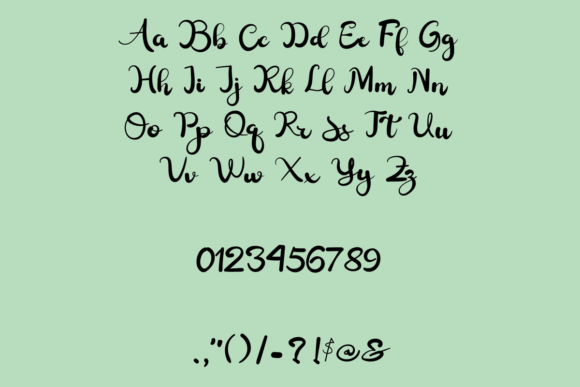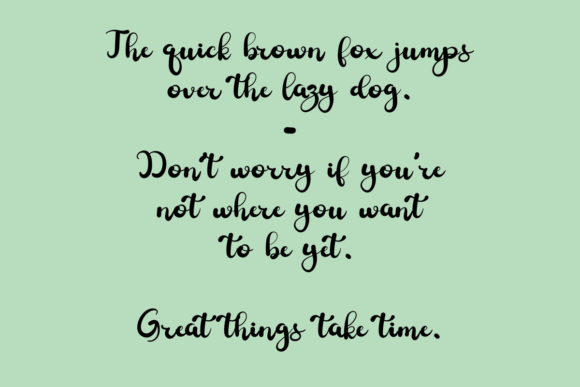
Introducing Claudia Font: The Playful and Lively Brush Script Font
Are you looking for a font that can add a cheerful touch to your project? Look no further than Claudia Font, a playful and lively brush script font that is sure to bring a smile to your face. With its fun and energetic style, Claudia is perfect for designers and crafters who want to add a personal touch to their work.
What is Claudia Font?
Claudia Font is a brush script font that is designed to mimic the look and feel of handwritten text. Its letters flow with a fun and energetic style, making it perfect for adding a playful touch to any project. Whether you’re working on a graphic design project, a crafting project, or just want to add some personality to your digital communications, Claudia Font is a great choice.
Key Features of Claudia Font
- Playful and lively style: Claudia Font has a fun and energetic style that is sure to add a cheerful touch to any project.
- Brush script design: Claudia Font is designed to mimic the look and feel of handwritten text, giving it a personal and unique feel.
- Easy to read: Despite its playful style, Claudia Font is easy to read and understand, making it perfect for use in a variety of projects.
- Versatile: Claudia Font can be used in a variety of projects, from graphic design and crafting to digital communications and more.
Uses for Claudia Font
Claudia Font is a versatile font that can be used in a variety of projects, including:
- Graphic design projects: Claudia Font is perfect for use in graphic design projects, such as brochures, flyers, and posters.
- Crafting projects: Claudia Font is a great choice for crafters who want to add a personal touch to their projects, such as scrapbooking and card making.
- Digital communications: Claudia Font can be used in digital communications, such as emails and social media posts, to add a personal and playful touch.
- Sign making: Claudia Font is perfect for use in sign making, such as creating signs for events or businesses.
Tips for Using Claudia Font
Here are a few tips for using Claudia Font in your projects:
- Use it sparingly: Claudia Font is a playful font, so it’s best to use it sparingly to add a touch of personality to your project.
- Pair it with other fonts: Claudia Font pairs well with other fonts, such as sans serif fonts, to create a visually interesting design.
- Experiment with colors: Claudia Font looks great in a variety of colors, so don’t be afraid to experiment and find the perfect color for your project.
Claudia Font is a playful and lively brush script font that is perfect for adding a cheerful touch to any project. With its fun and energetic style, Claudia is a great choice for designers and crafters who want to add a personal touch to their work. Whether you’re working on a graphic design project, a crafting project, or just want to add some personality to your digital communications, Claudia Font is a great choice.
- What is Claudia Font?
- Claudia Font is a playful and lively brush script font that is designed to mimic the look and feel of handwritten text.
- What is Claudia Font used for?
- Claudia Font can be used in a variety of projects, including graphic design, crafting, digital communications, and more.
- Is Claudia Font easy to read?
- Yes, Claudia Font is easy to read and understand, making it perfect for use in a variety of projects.